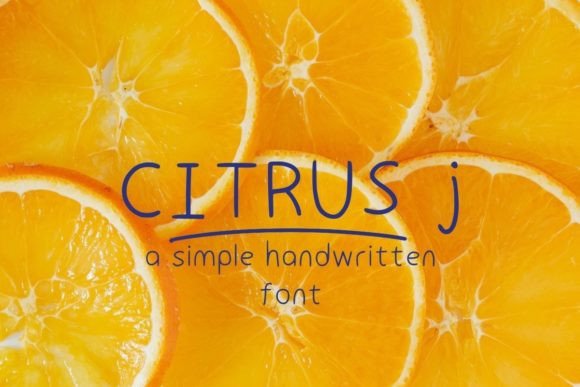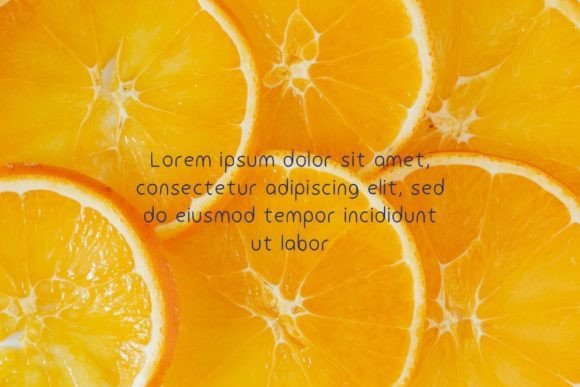
Citrus J Font
About Citrus J Font
“Citrus J” is a delightful handwritten font that embodies simplicity and natural charm. Its uncomplicated and organic letterforms create a genuine and approachable look, making it a versatile choice for a wide range of design applications. From casual projects to more sophisticated designs, “Citrus J” adds a fresh and youthful touch, breathing life into your creations.
The font’s simplicity is its strength, allowing it to adapt seamlessly to various design contexts. Its clean and straightforward appearance makes it suitable for both digital and print media. Whether you’re crafting social media posts, website content, branding materials, or any other creative project, “Citrus J” effortlessly adds a touch of freshness and authenticity.
“Citrus J” exudes a natural and unpretentious vibe, making it perfect for projects that aim to convey a sense of genuineness and sincerity. Its handwritten style gives your text a personal and relatable feel, connecting with the viewer on a human level. This font brings a breath of fresh air to your designs, infusing them with a youthful energy that resonates with audiences of all ages.
In addition to its versatility, “Citrus J” has the ability to enhance the visual appeal of your designs, making them more engaging and visually pleasing. Its fresh and youthful touch creates a positive and optimistic atmosphere, making it suitable for projects that aim to evoke feelings of joy, enthusiasm, and creativity.
Whether you’re designing promotional materials, social media graphics, product packaging, or any other content that requires a natural and approachable look, “Citrus J” is the perfect choice. Its simplicity, versatility, and youthful charm make it a valuable asset in your design toolkit. Embrace the freshness of “Citrus J” and let it add a touch of natural beauty and authenticity to your creative projects, making them shine with a vibrant and youthful energy.